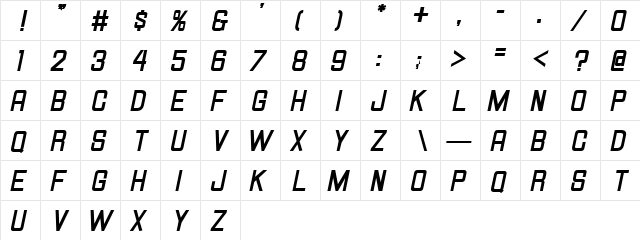
HallandaleSquareBold It. JL Regular
| Foundry | Jeff's Fonts & Dingbats |
| Designer | Jeffrey N. Levine |
Design Context for HallandaleSquareBold It. JL Typeface
HallandaleSquareBold It. JL takes a measured approach to typography — its balanced proportions and neutral character make it a reliable workhorse for both digital and print work. The heavy weight commands attention and anchors typographic hierarchies.